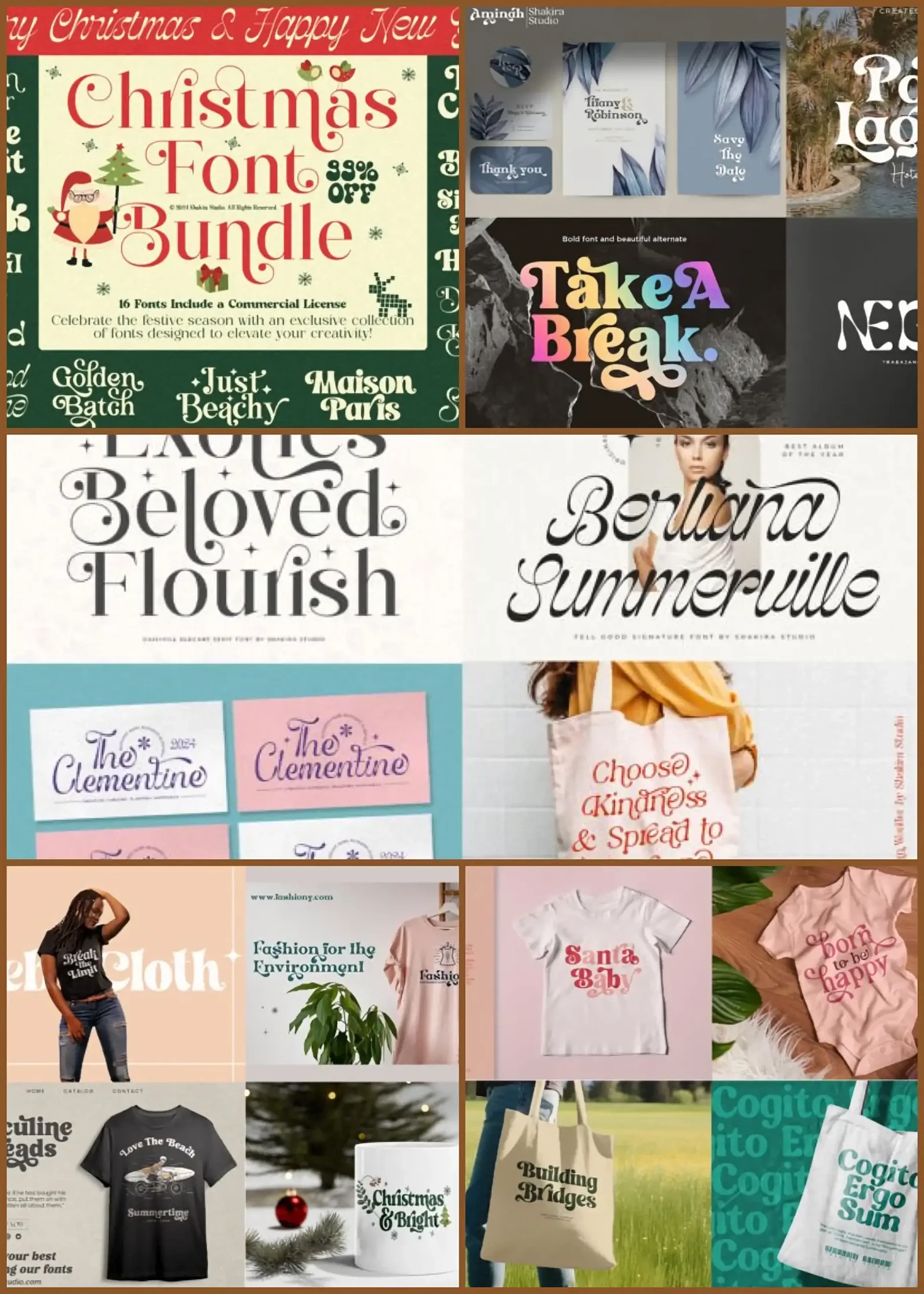
This Christmas Font Bundle is a collection of typefaces for designers seeking to add seasonal style to their projects. It has 16 fonts that mix retro, vintage, and modern styles, suitable for holiday branding, crafts, marketing, and design.
It can be used for Christmas invites, logos, blog images, magazines, and social media. Fonts include Blossom Wonder, Golden Batch, Hugme, Cheese Delight, Maison Paris, and Holy Cream, which mix serifs, swashes, and alternates for a refined look.
The bundle suits design styles like retro Christmas, holiday, vintage serif, and branding fonts. Its flexible nature makes it good for invites, fashion brands, packaging, retro ads, magazines, and logos needing character.